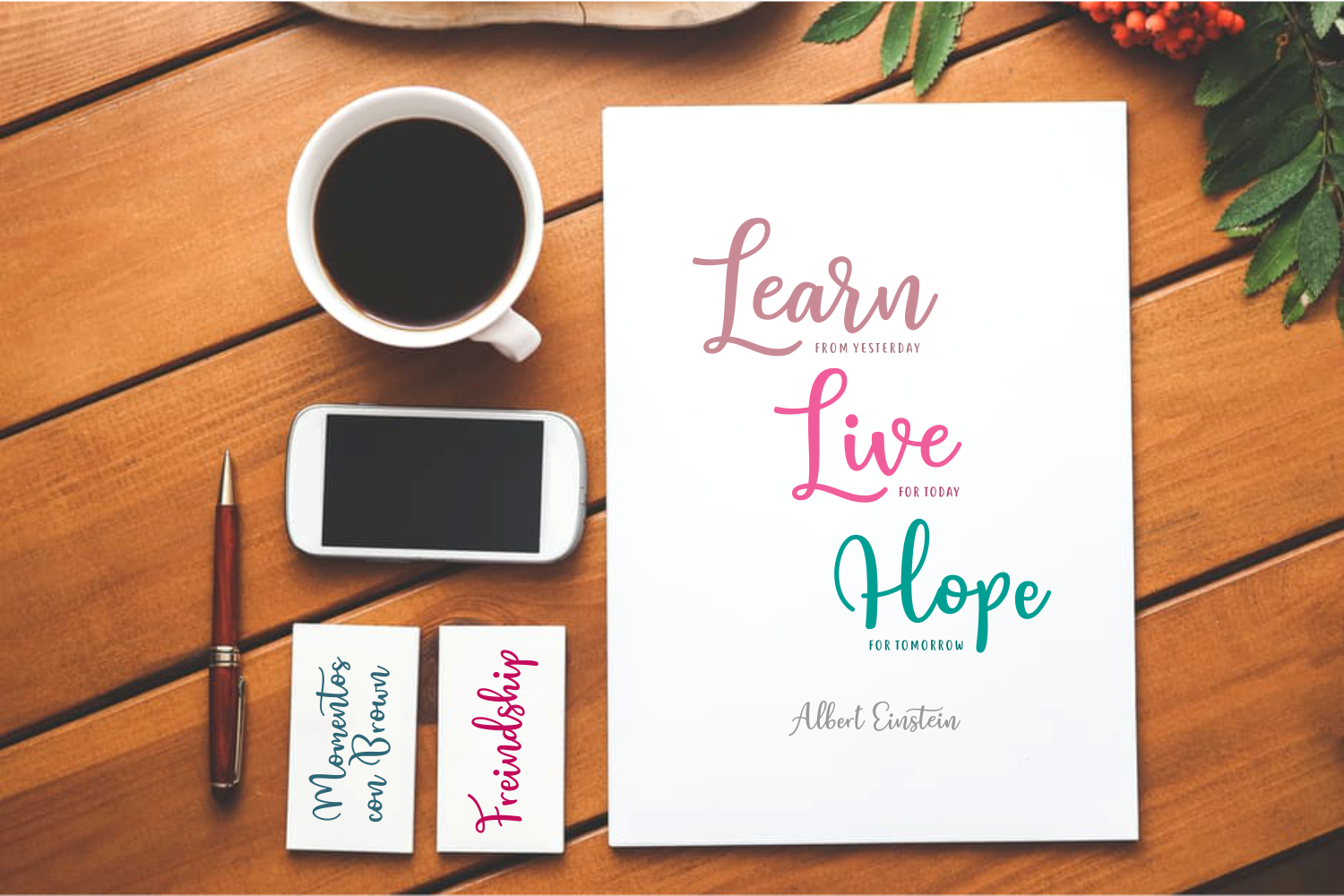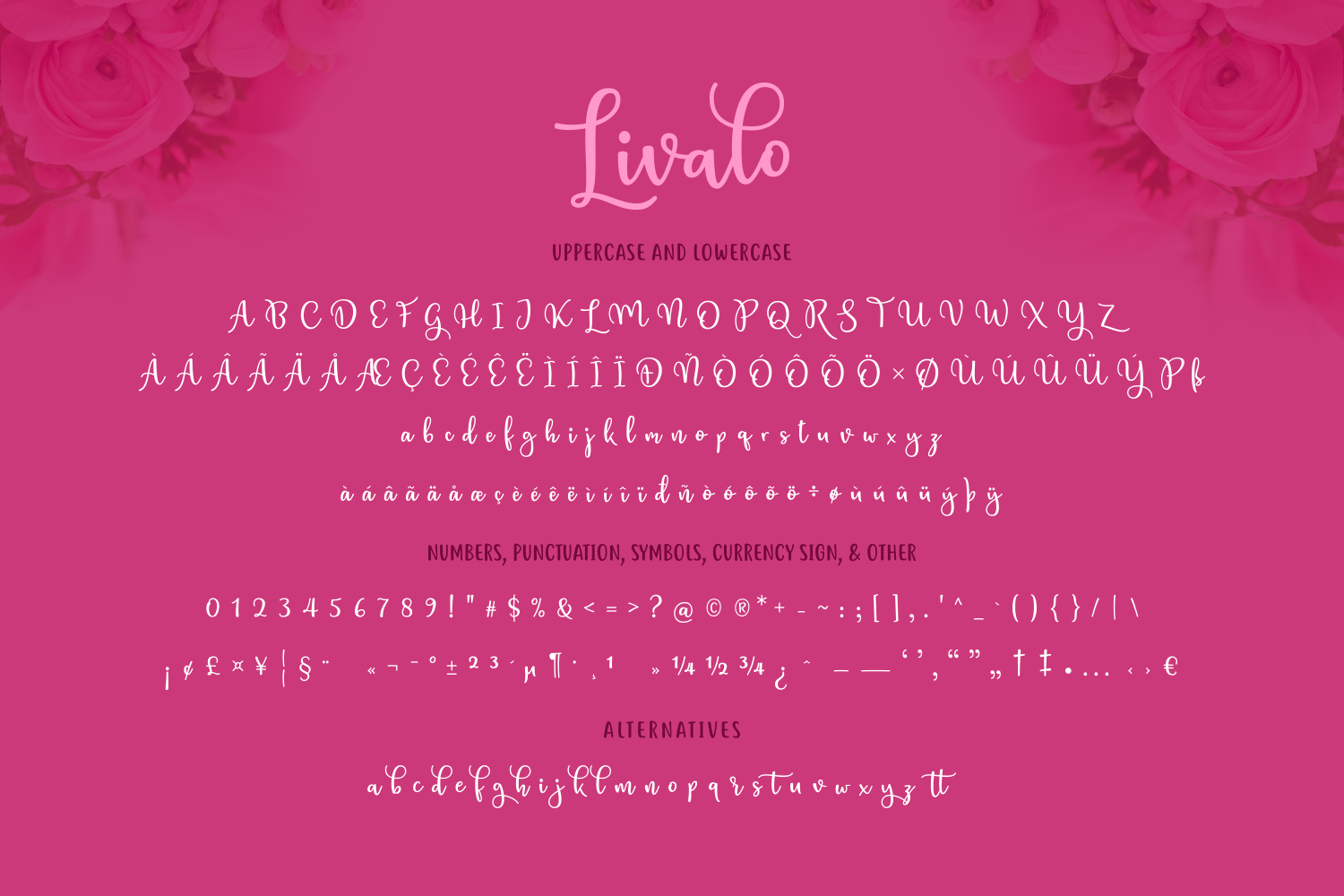
Livalo Font
About Livalo Font
Livalo is a stunning and fashionable script, one suited to a wide range of designs and styles. Livalo is elegant and dances with dynamic energy, making it a go-to display font.